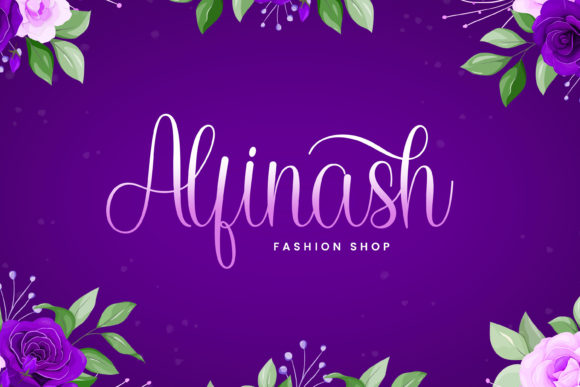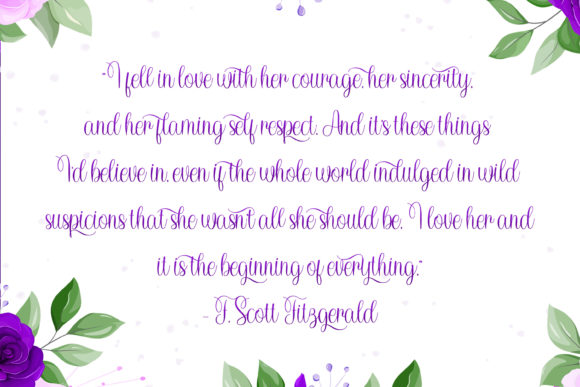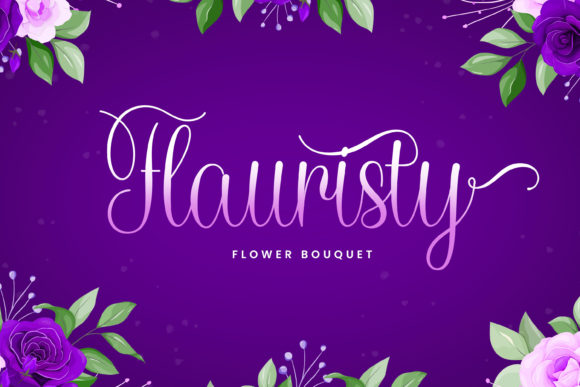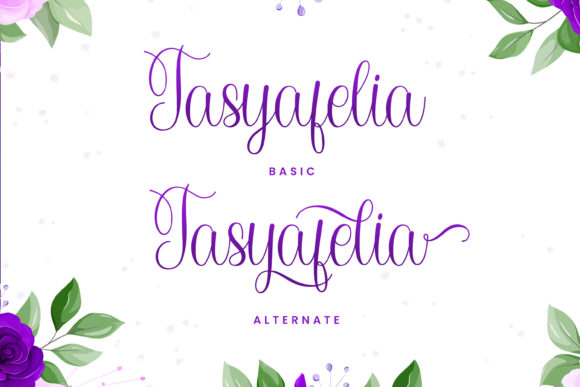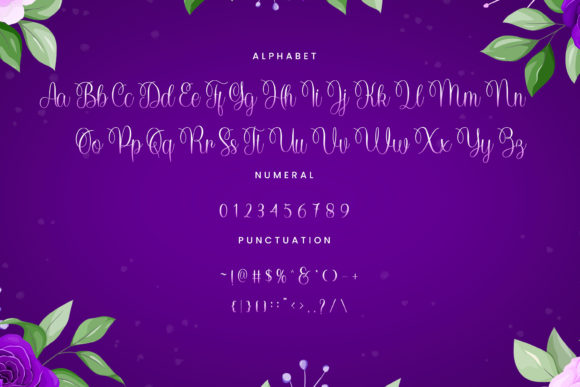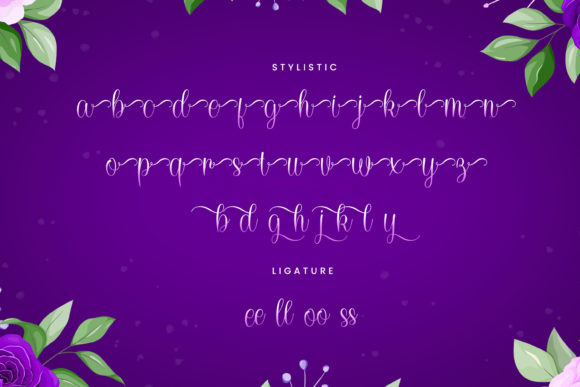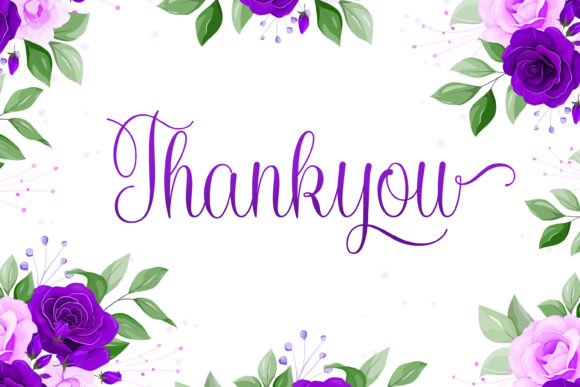
About Olaryna Font
Olaryna is a chic, refined script font that emanates sophistication and elegance. Its stylish alternates and ligatures make this font the perfect match for any project.